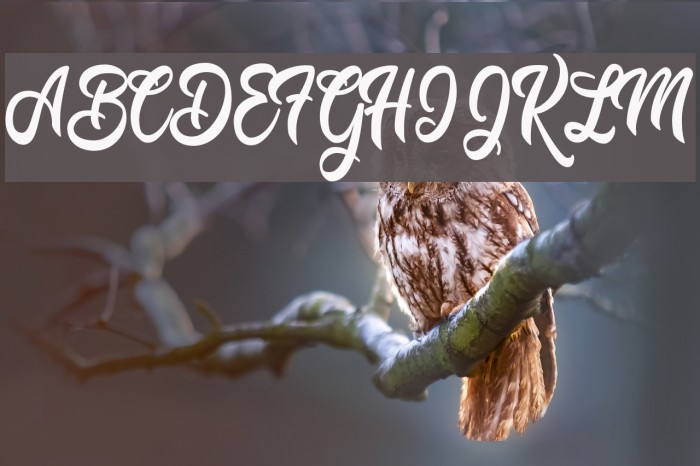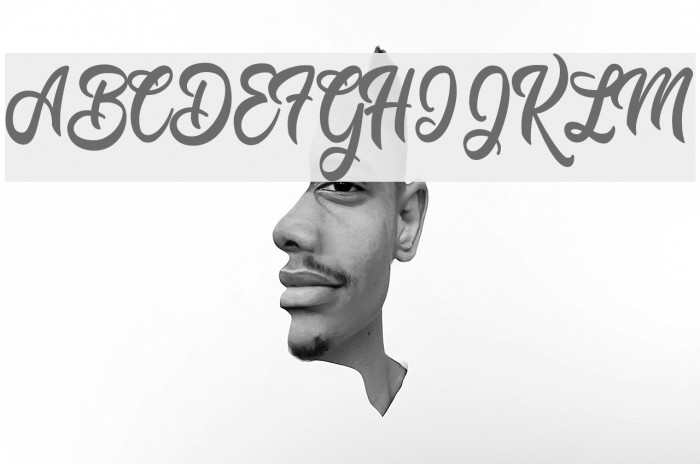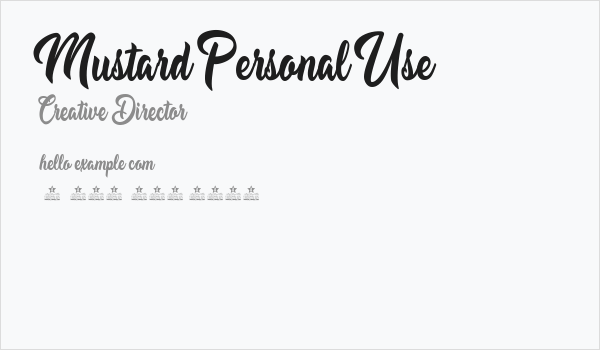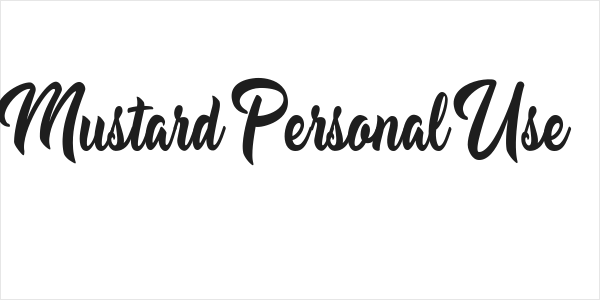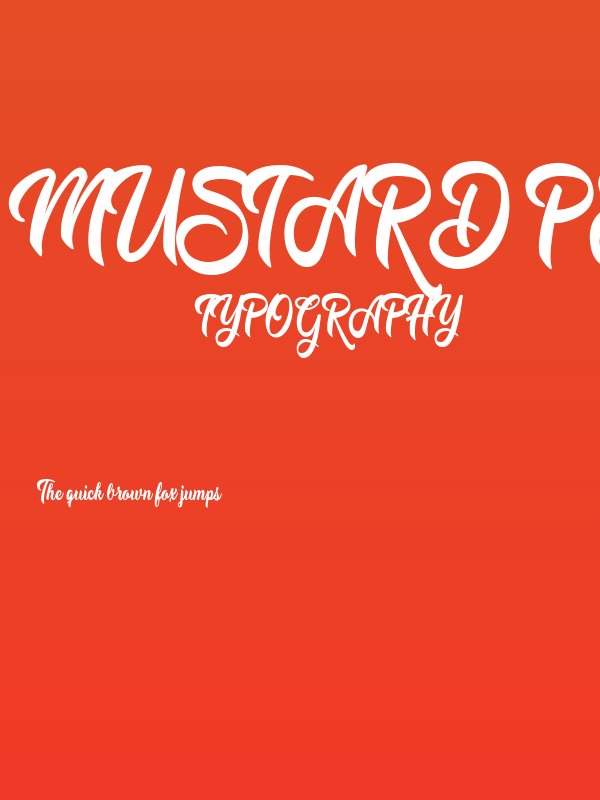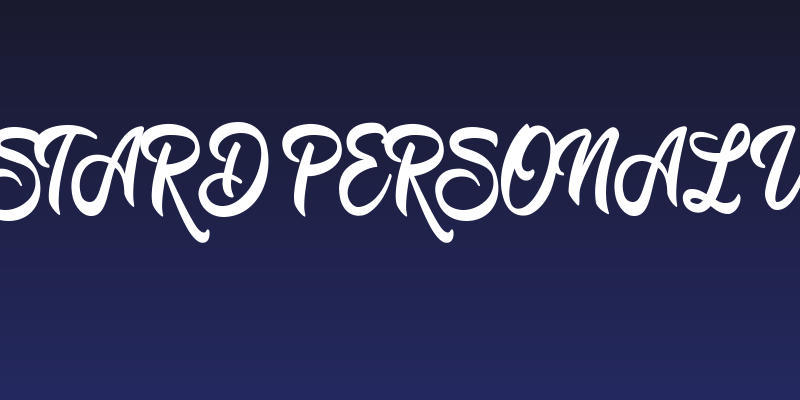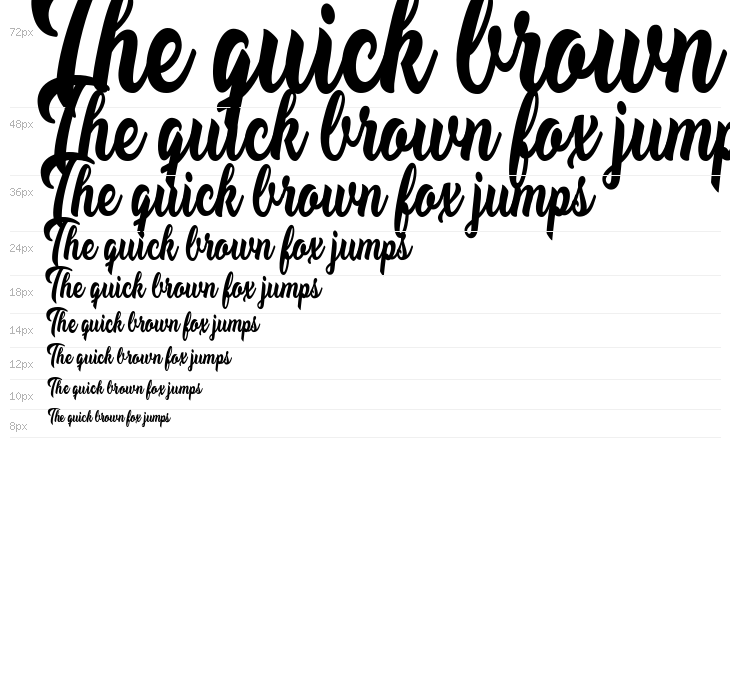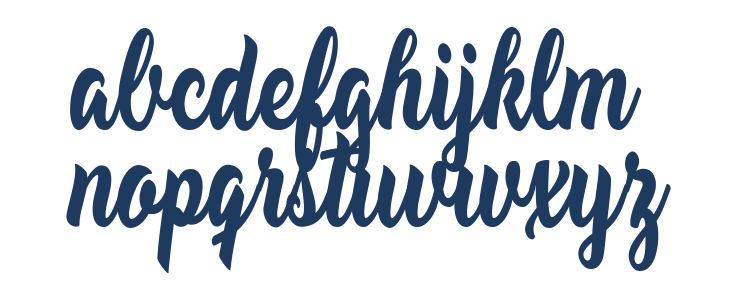
Mustard Personal Use Font
Mustard Personal Use Description
This font features a bold and flowing script style, characterized by its elegant and smooth curves. The uppercase letters are particularly ornate, with sweeping lines that convey a sense of movement and grace. The lowercase letters maintain a consistent style, offering a harmonious blend of readability and decorative flair. The font's design is reminiscent of classic calligraphy, making it suitable for projects that require a touch of sophistication and elegance. Its bold weight ensures that it stands out, while the script style adds a personal and artistic touch.
| Proposed Projects | Ideal for wedding invitations, branding, logo design, and elegant stationery. |